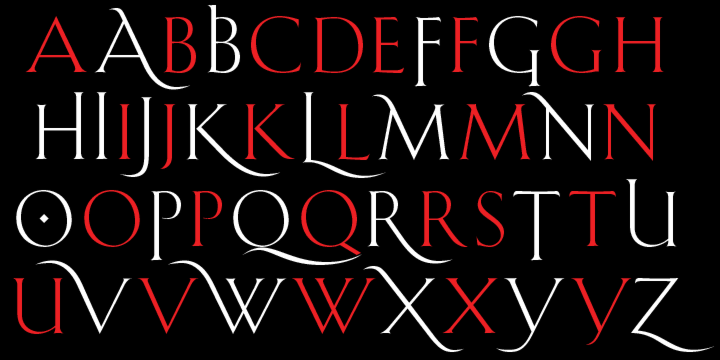
Shàngó Font Free Download is an elegant, high-contrast serif typeface inspired by classical Roman letterforms and modern display typography. Perfect for luxury branding, editorial design, fashion campaigns, packaging, and striking headlines, Shàngó Font brings sophistication and drama to any creative project. Its tall, graceful letterforms and refined serifs make it ideal for designs that demand attention with a timeless yet contemporary flair.
Whether you’re crafting luxury logos, elegant invitations, magazine covers, or high-end marketing materials, Shàngó Font delivers a bold, upscale presence that elevates your work. Its combination of classic elegance and modern edge makes it a standout choice for both print and digital media.